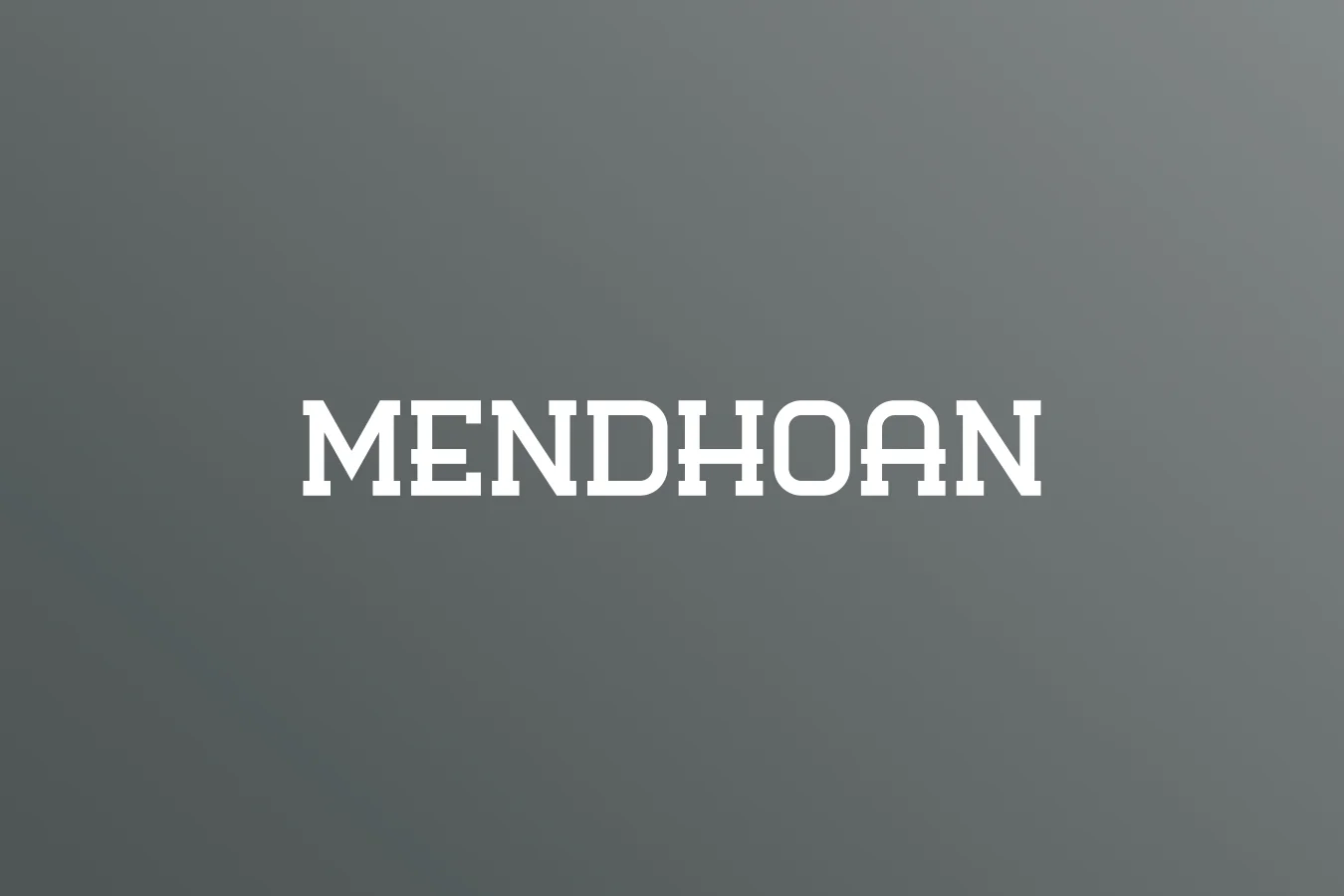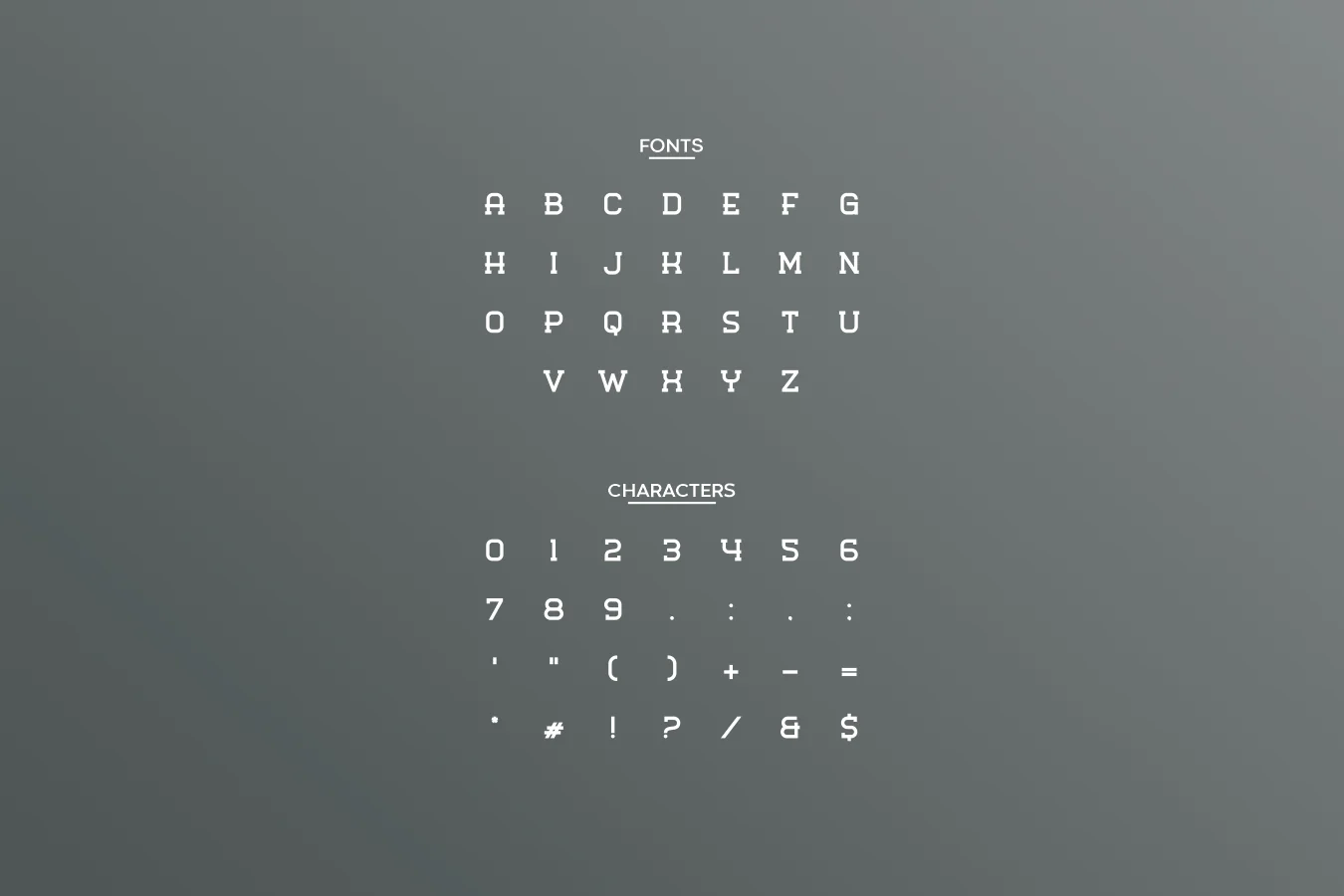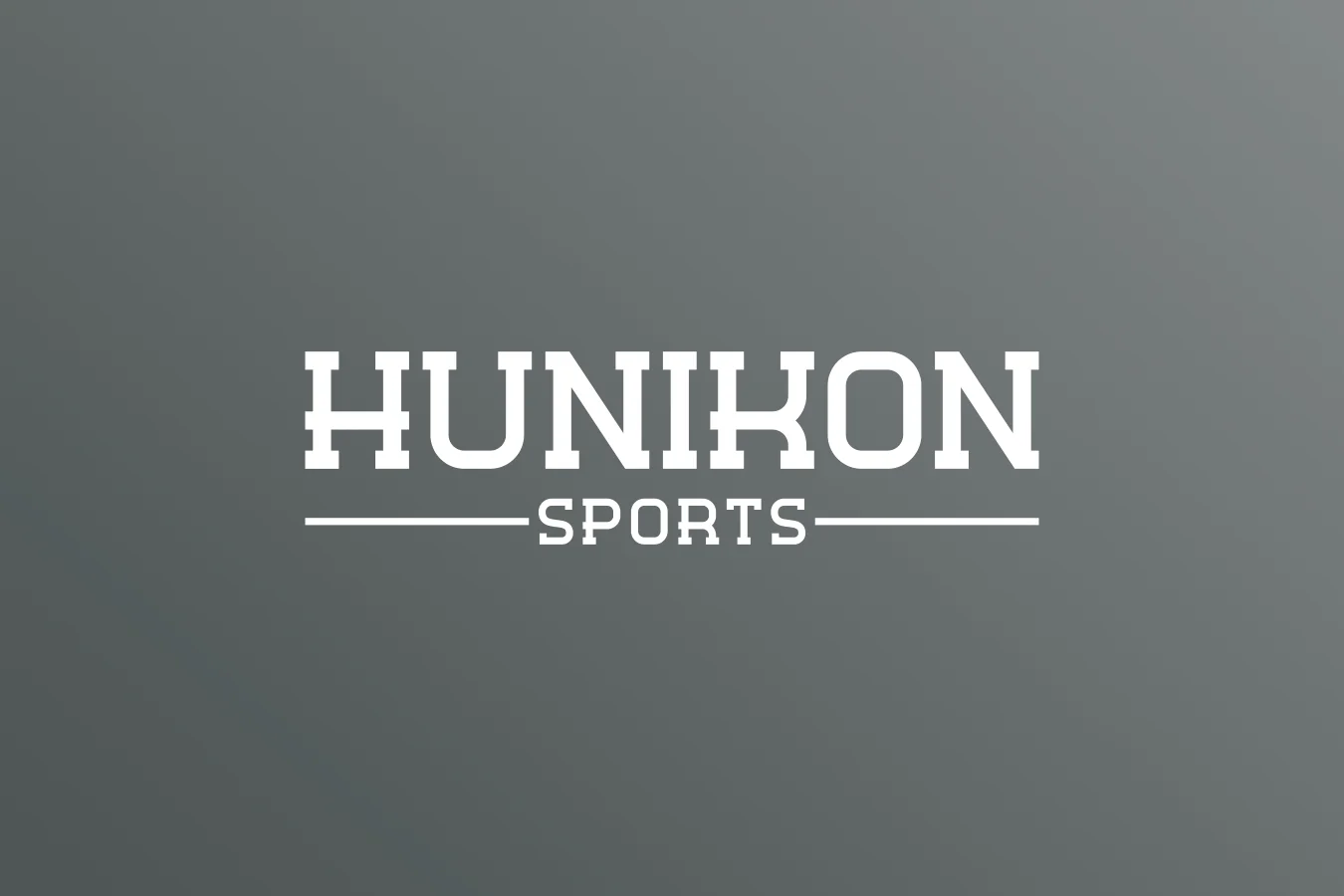
Hakane – Vintage Font
Hakane is modern sport display font, brings back old vibes into a modern and powerful form. Hakane is a font inspired by old style fonts, it would suit vintage military designs, titles, even adventures. Of course, this font will be great for logos and branding, grab it to produce your amazing designs.